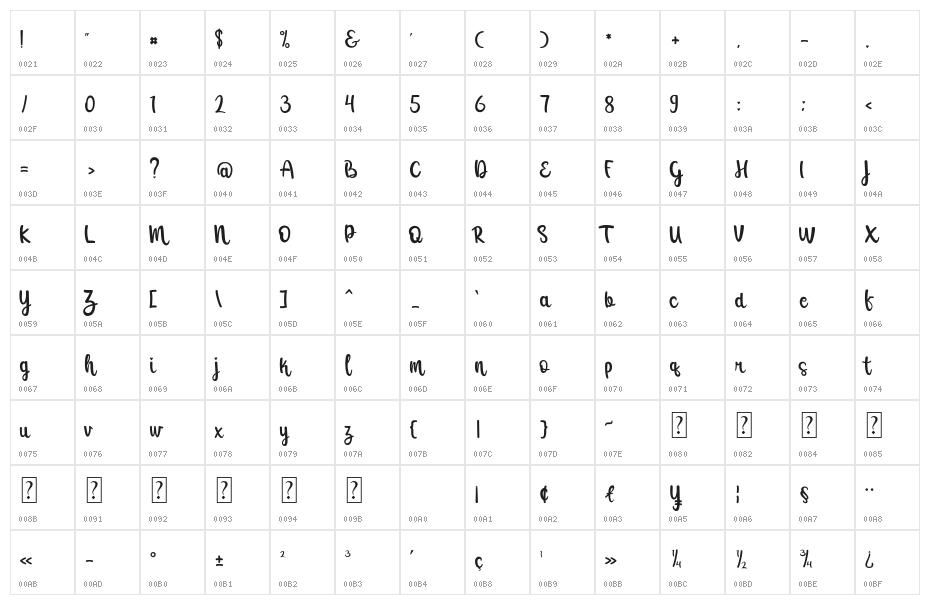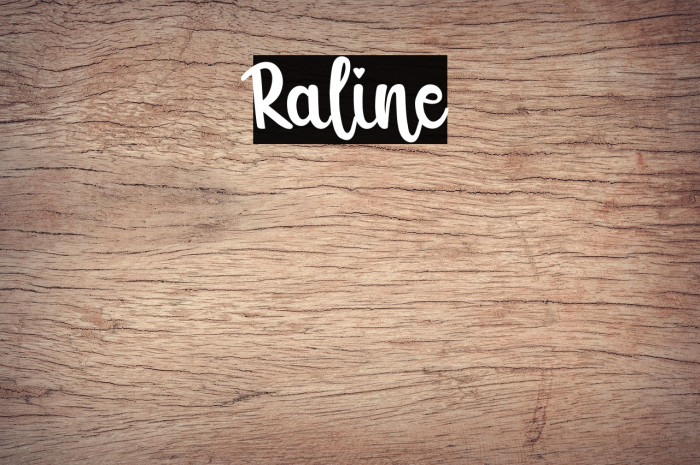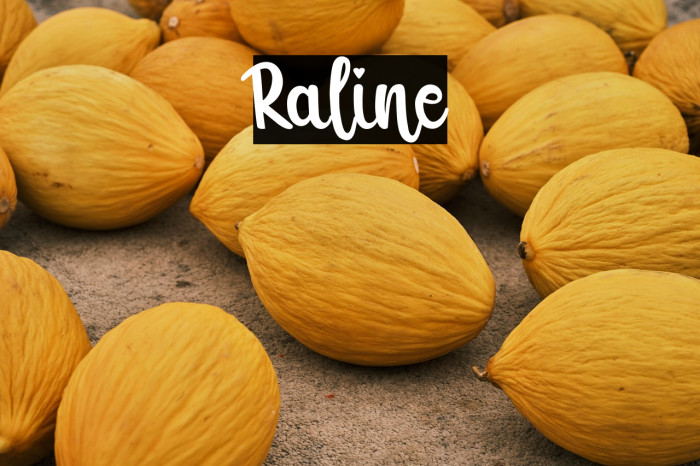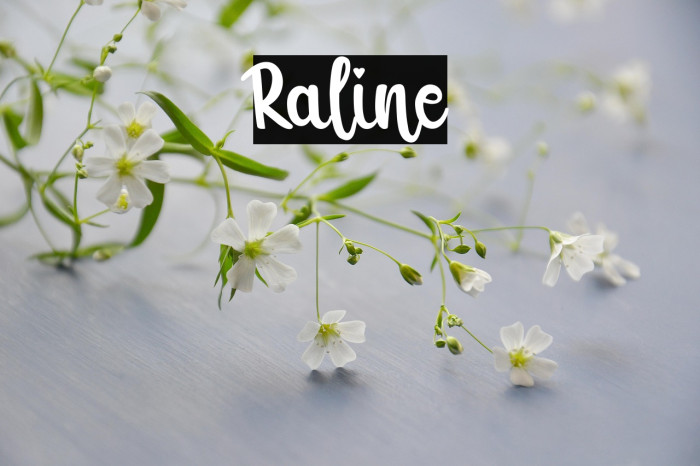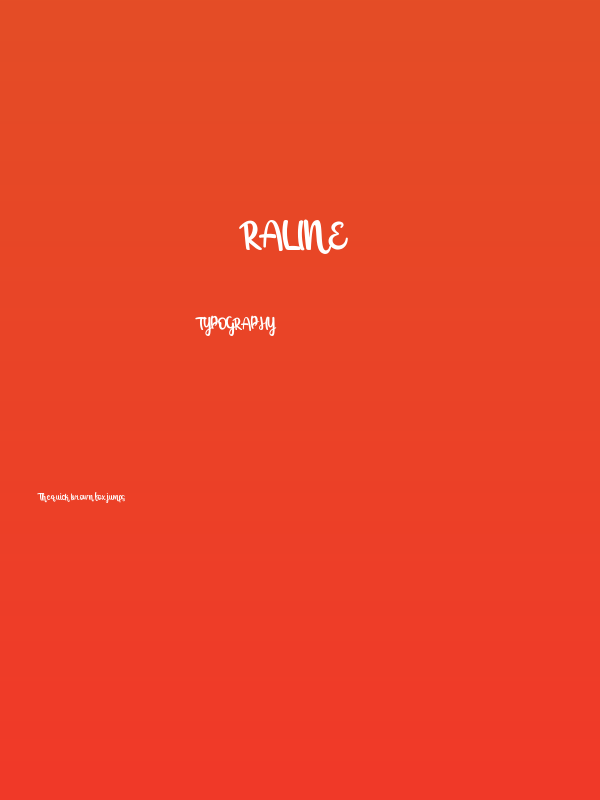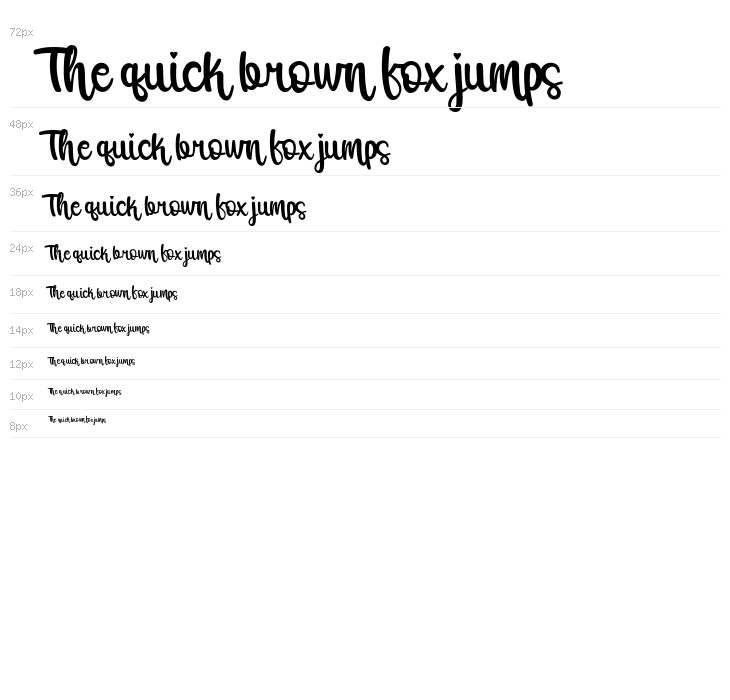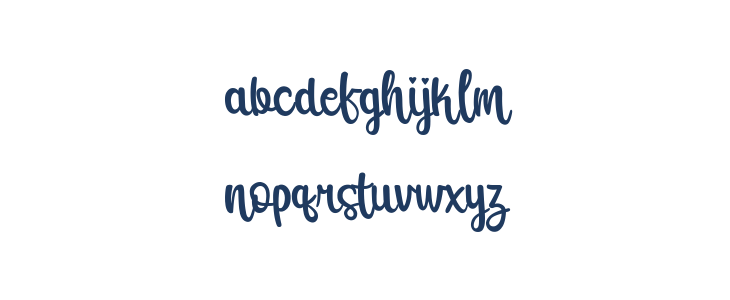
Raline Font
Raline Description
This font features a playful and energetic script style with a hand-drawn appearance. The letters are interconnected, giving a sense of fluidity and movement. The strokes are bold and rounded, creating a friendly and approachable look. The uppercase letters are slightly larger and more pronounced, while the lowercase letters maintain a consistent flow. Numbers and special characters are designed to match the lively style, making them suitable for creative and informal applications.
| Use Case | Logos, Headlines, Invitations |
| Proposed Projects | Ideal for greeting cards, invitations, playful branding, and social media graphics. |